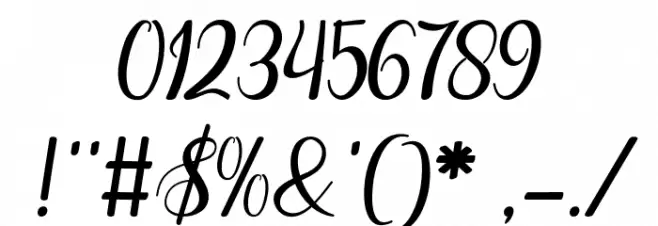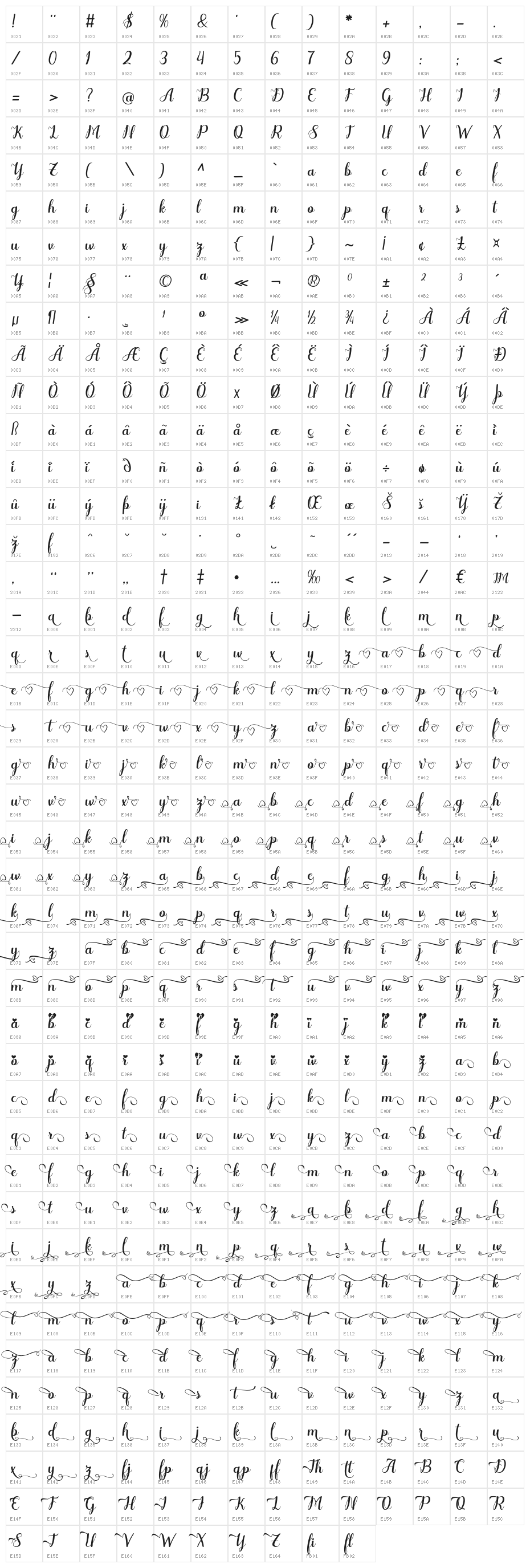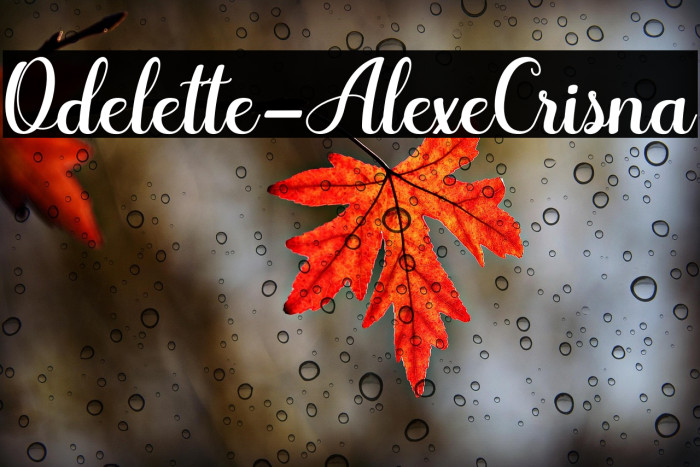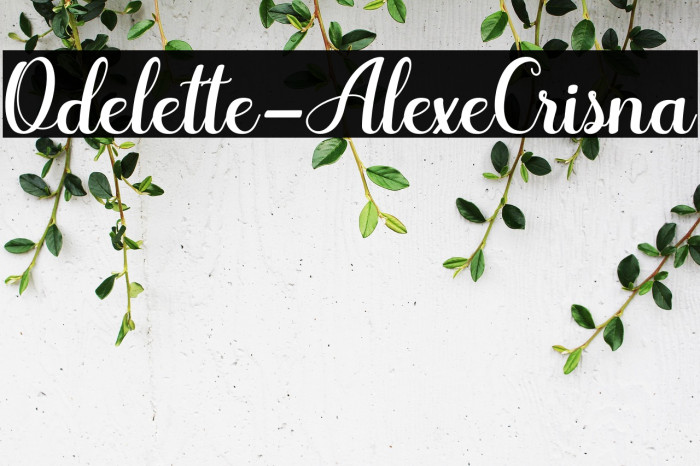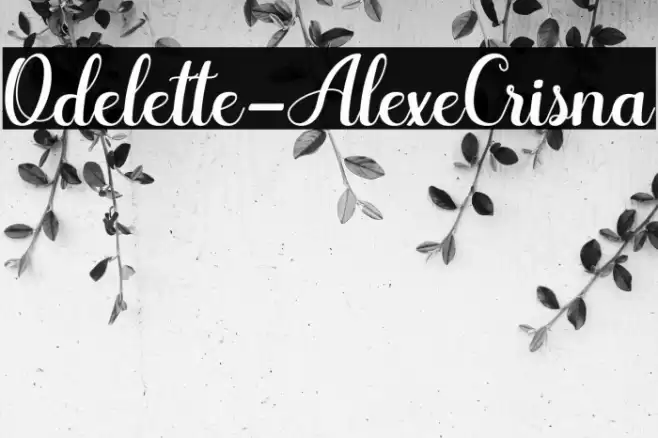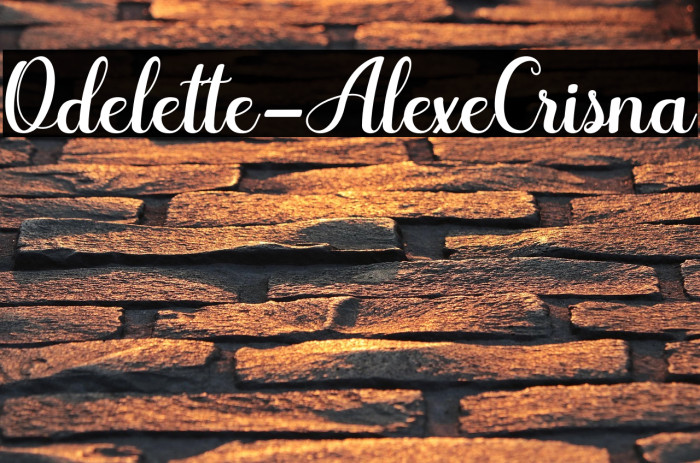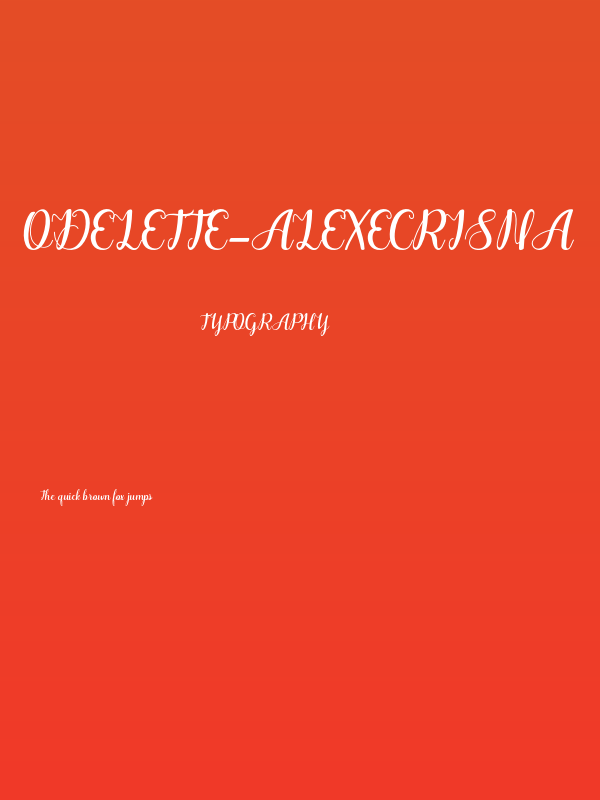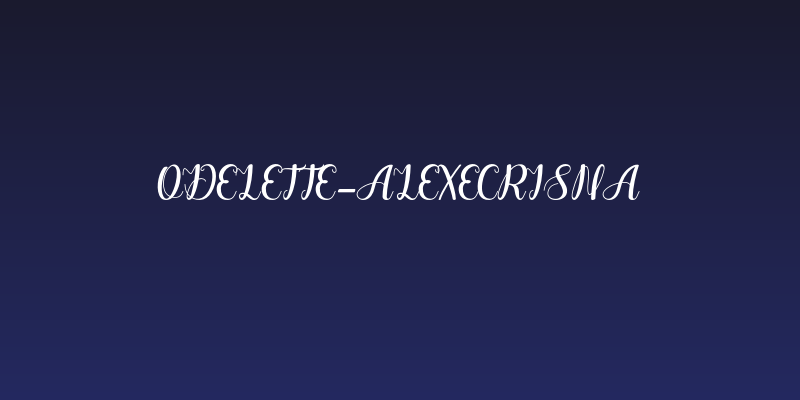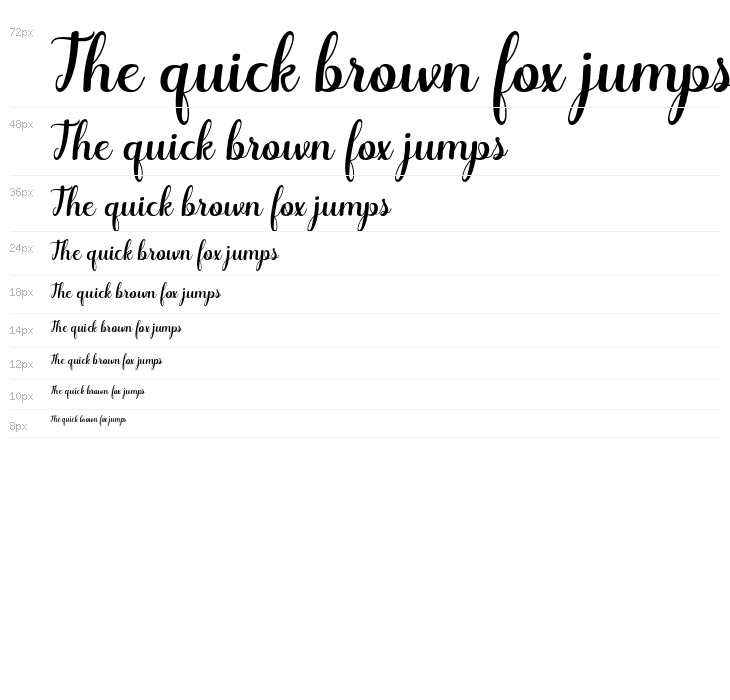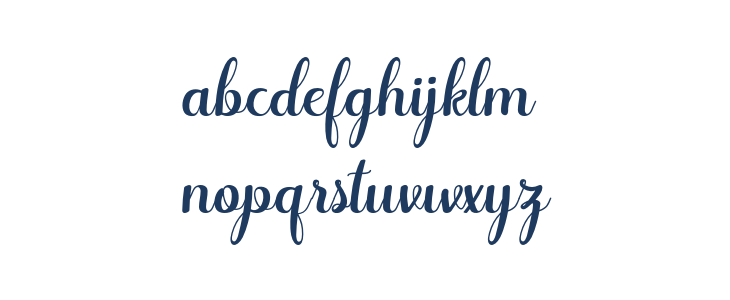
Odelette-AlexeCrisna Font
Odelette-AlexeCrisna Description
This elegant script font features flowing, cursive letters with a sophisticated and artistic flair. The uppercase characters are ornate and stylish, with sweeping curves and flourishes that add a touch of luxury and grace. The lowercase letters maintain a consistent flow, enhancing readability while retaining the decorative style. Numbers and special characters are designed to match the overall aesthetic, making them suitable for a variety of creative applications. The font's smooth lines and balanced proportions make it ideal for projects that require a touch of elegance and refinement.
| Proposed Projects | Ideal for wedding invitations, luxury branding, greeting cards, and elegant packaging designs. |